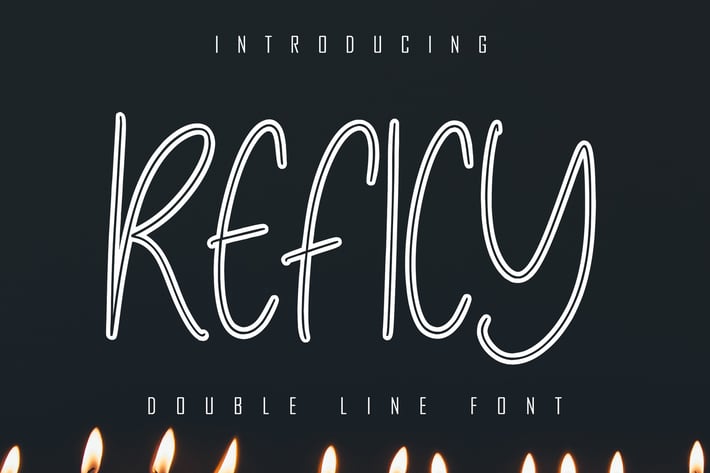
Reficy Double Line Font
Reficy is a handwritten double line with a natural flow and beautiful style. Reficy is perfect for invitation design projects, prewedding, branding, logos, wedding designs, social media posts, advertisements, product packaging, product design, labels, photography, watermarks, invitations, stationery, and any project that requires handwriting tastes .